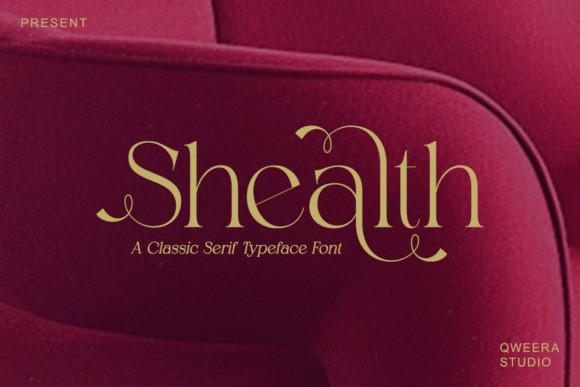
Shealth Font
Shealth Font a classic serif typeface that blends traditional structure with artistic flair.
This Shealth typeface is distinguished by its unique, elongated swashes and delicate curls that emerge from its terminals, giving it an air of high-fashion editorial design. The Shealth font is the ultimate choice for luxury logos, upscale magazine headers, and sophisticated wedding stationery.
Use the Shealth typeface whenever your project requires a balance of authoritative serif structure and soft, poetic movement.